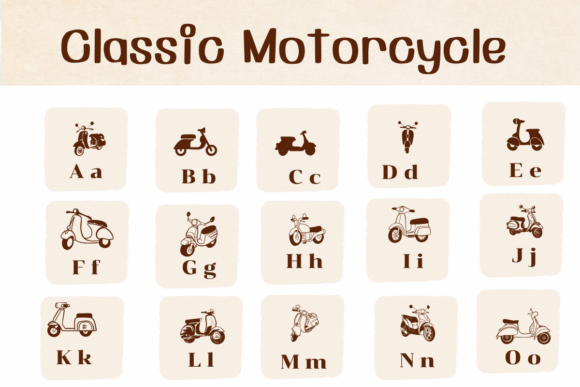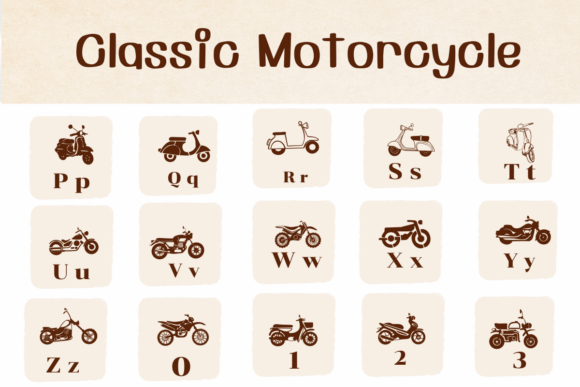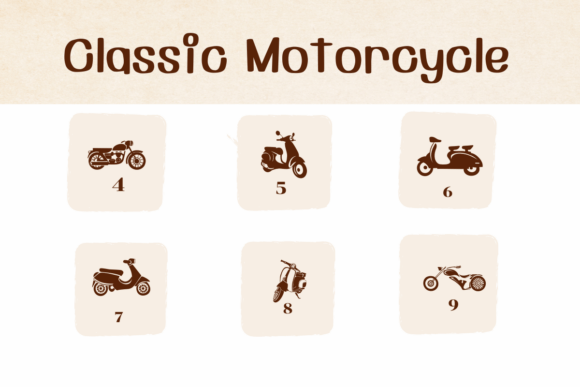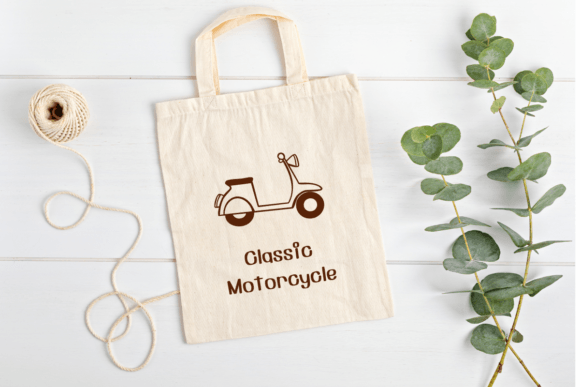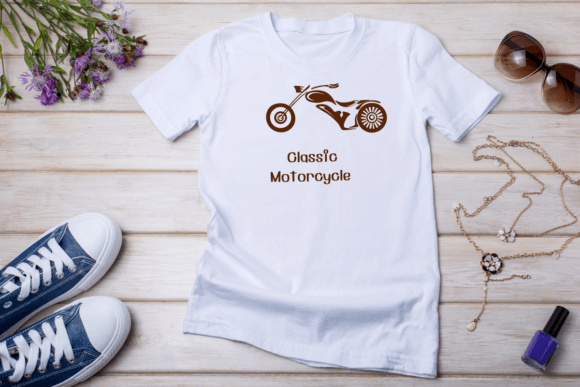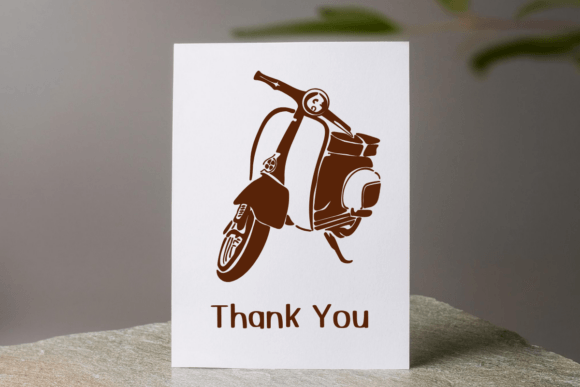
Rev Up Your Designs with Classic Motorcycle Font
Are you a designer, crafter, or DIY enthusiast looking for a unique and stylish font to add a touch of personality to your projects? Look no further than the Classic Motorcycle Font, a dingbats font that embodies the spirit of adventure and freedom. With its sketch-style theme, this font is perfect for creative projects that require a dash of nostalgia and charm.
What is Classic Motorcycle Font?
Classic Motorcycle Font is a dingbats font that features a collection of icons and symbols inspired by classic motorcycles. The font is designed to resemble a sketch or hand-drawn style, giving it a distinctive and eye-catching look. The font includes a range of characters, from motorcycle parts and accessories to road signs and vintage-inspired graphics.
Uses for Classic Motorcycle Font
The Classic Motorcycle Font is incredibly versatile and can be used for a wide range of creative projects. Here are some ideas to get you started:
- Wedding Invitations: Add a touch of vintage charm to your wedding invitations with the Classic Motorcycle Font. Use it to create custom illustrations of motorcycles, roads, or other travel-inspired elements.
- DIY and Crafts: The Classic Motorcycle Font is perfect for DIY enthusiasts and crafters. Use it to create custom labels, signs, or decorations for your projects.
- Logos and Branding: If you’re looking for a unique and memorable logo for your business, the Classic Motorcycle Font could be the perfect choice. Use it to create a custom logo that reflects your brand’s personality and style.
- Decorations: Use the Classic Motorcycle Font to create custom decorations for your home or office. From wall art to party decorations, this font can add a touch of personality to any space.
Benefits of Using Classic Motorcycle Font
So why choose the Classic Motorcycle Font for your next project? Here are just a few benefits:
- Unique and Eye-Catching: The Classic Motorcycle Font is unlike any other font on the market. Its sketch-style theme and vintage-inspired graphics make it a standout choice for designers and crafters.
- Versatile: The font includes a range of characters and symbols, making it perfect for a wide range of creative projects.
- High-Quality: The font is designed to be high-quality and scalable, ensuring that it looks great on any device or in any application.
Tips for Using Classic Motorcycle Font
Here are a few tips for getting the most out of the Classic Motorcycle Font:
- Experiment with Different Sizes: The Classic Motorcycle Font looks great in a range of sizes, from small and delicate to large and bold. Experiment with different sizes to find the perfect fit for your project.
- Combine with Other Fonts: The Classic Motorcycle Font pairs well with a range of other fonts, from simple sans-serifs to elegant scripts. Experiment with different font combinations to find the perfect look for your project.
- Use it to Add Visual Interest: The Classic Motorcycle Font is perfect for adding visual interest to your designs. Use it to create custom illustrations, icons, or graphics that draw the eye and add personality to your project.
The Classic Motorcycle Font is a unique and versatile font that’s perfect for designers, crafters, and DIY enthusiasts. With its sketch-style theme and vintage-inspired graphics, this font can add a touch of personality and charm to any creative project. Whether you’re looking for a font for wedding invitations, DIY projects, or logos and branding, the Classic Motorcycle Font is a great choice. So why wait? Download the Classic Motorcycle Font today and rev up your designs!